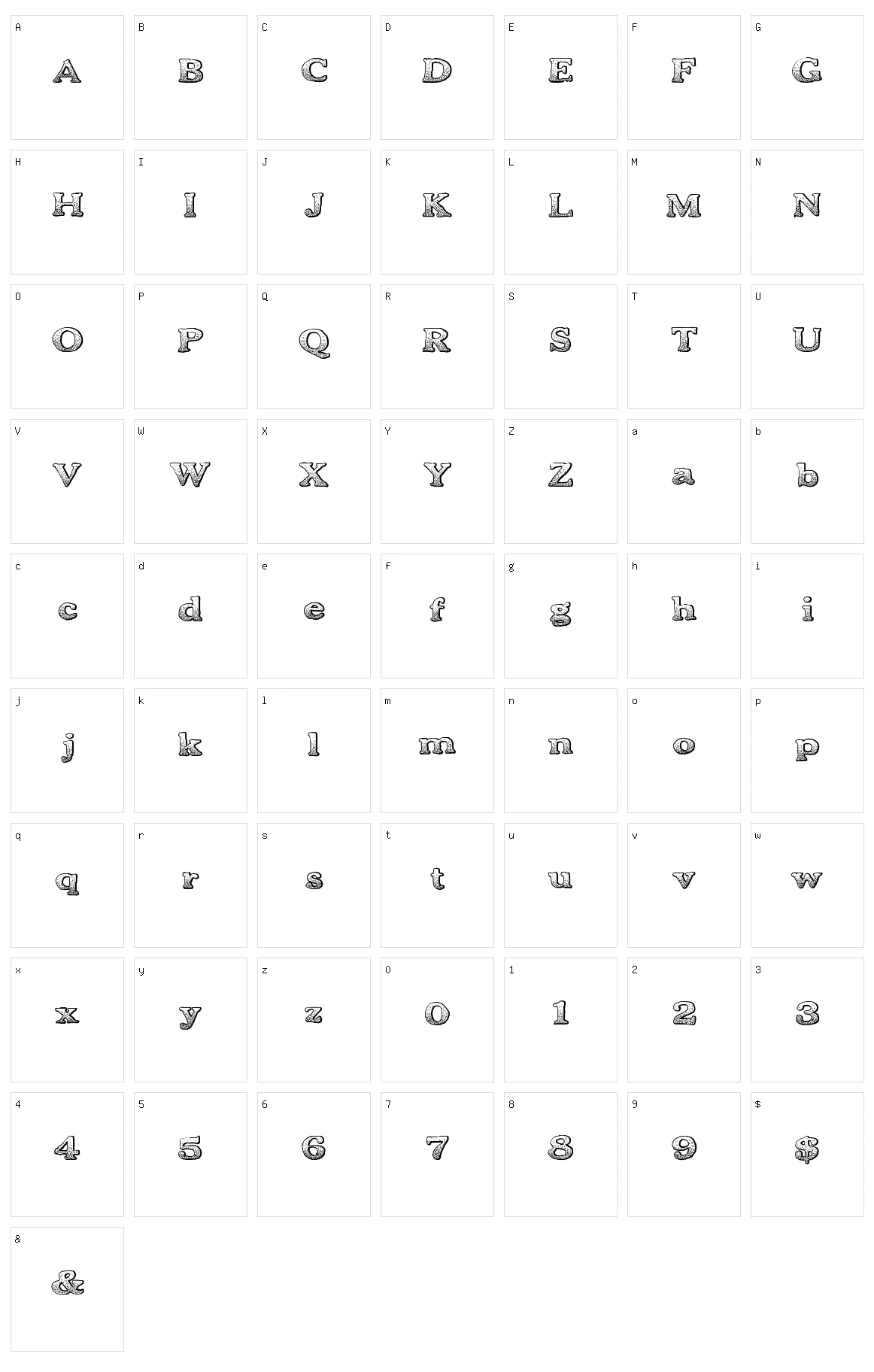
The free font Bold Drink is carefully designed by Xerographer Fonts, showcasing a thoughtful balance of creativity and usability and falls under the Eroded font style. When you download the ZIP file, it contains only 514.85 KB of font files, making it lightweight and quick to download. Please review the license details below to understand permitted usage and distribution rights. If license information is not available, we recommend using this font for personal projects only or contacting the author directly for commercial usage permissions.